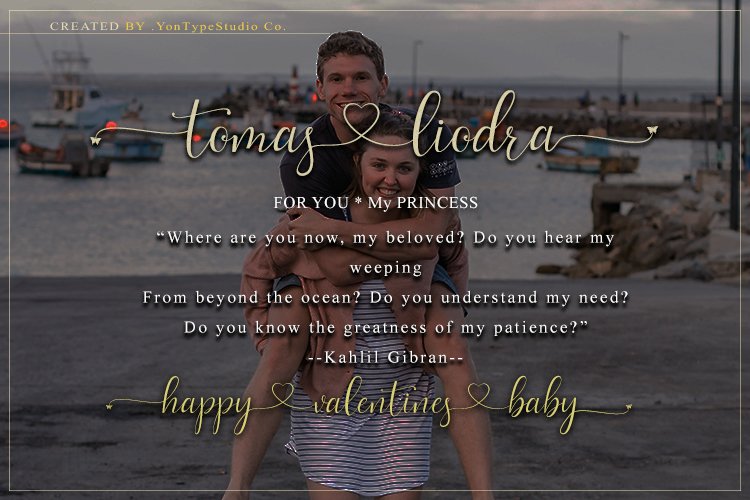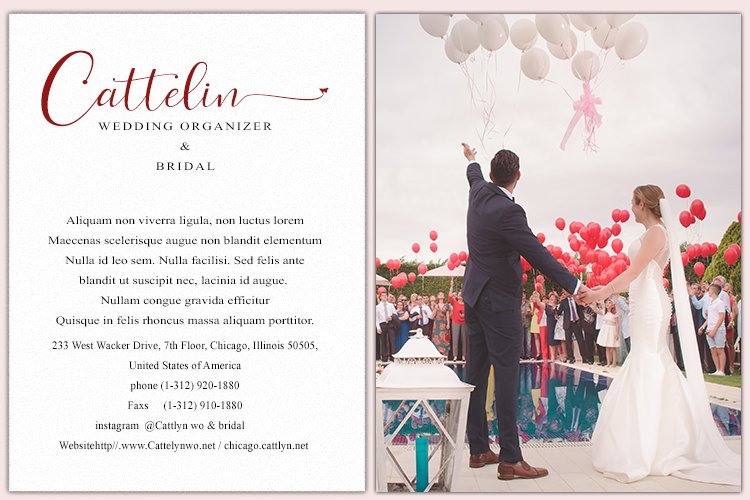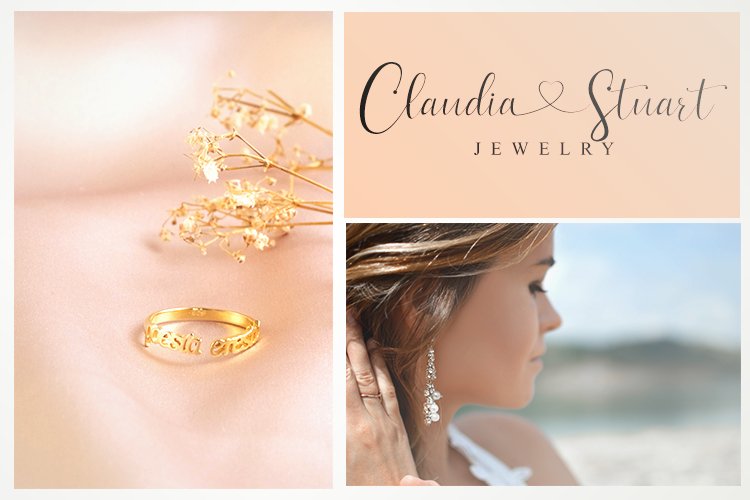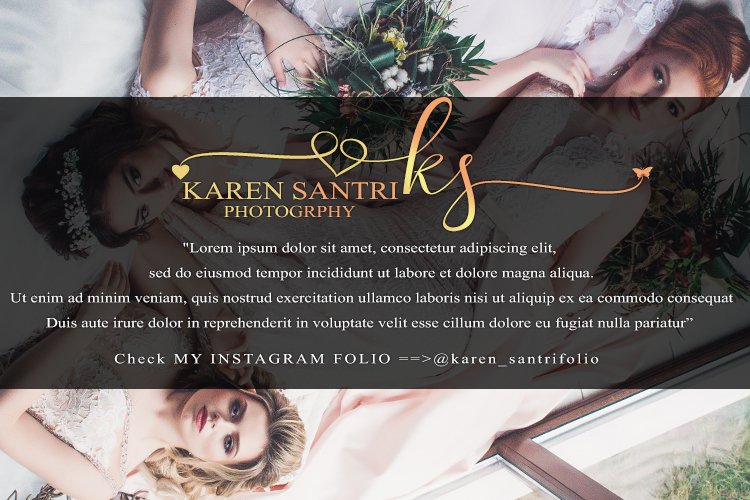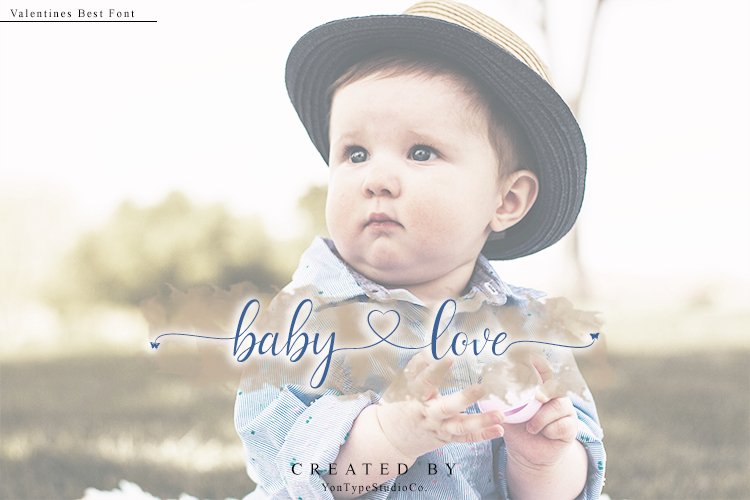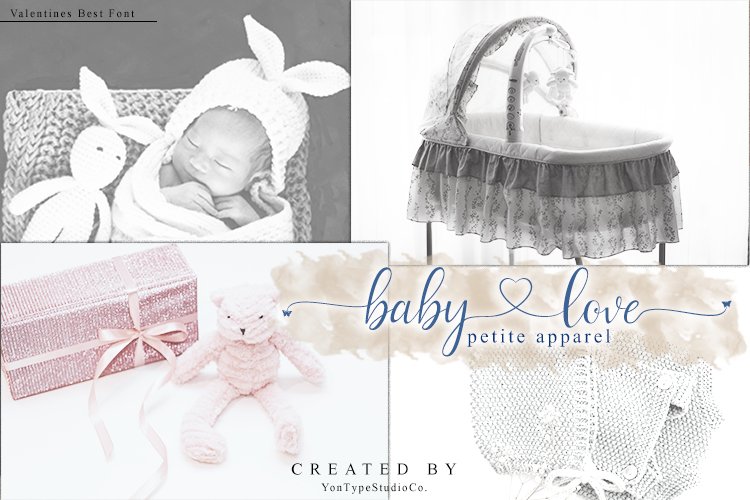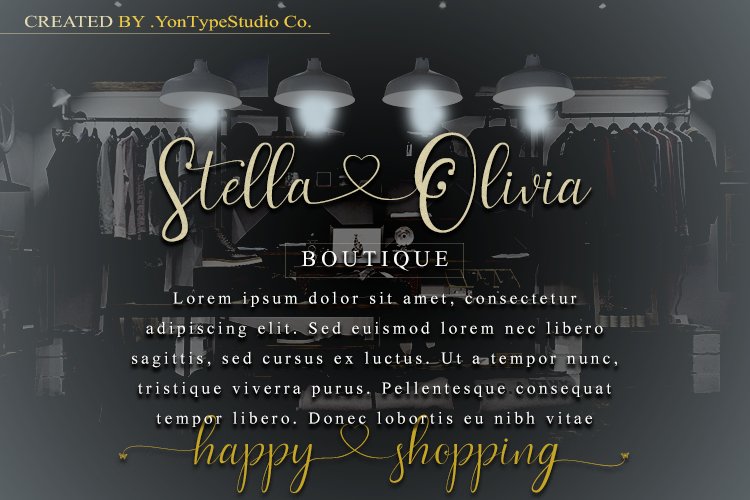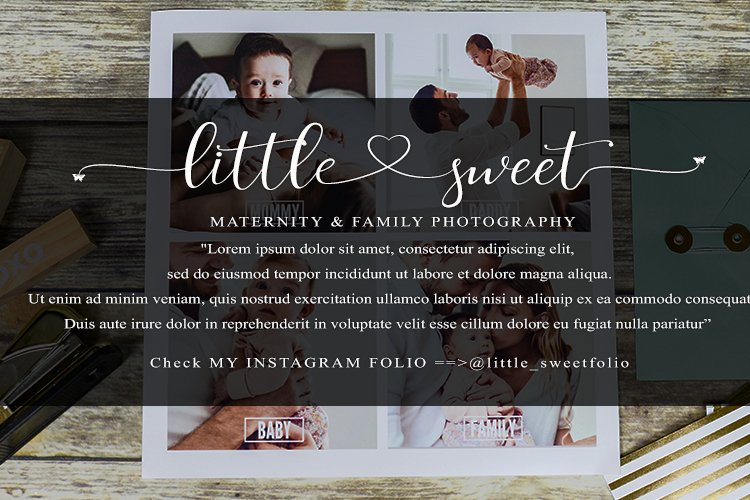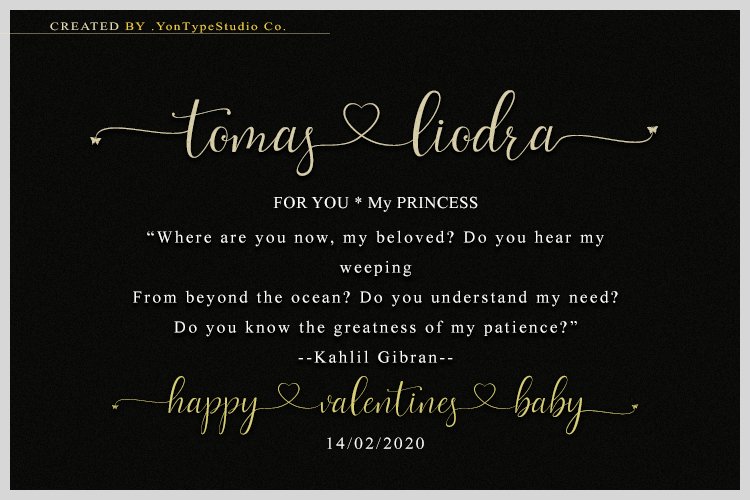
introducing the live love font
This font is a handwritten Calligraphy font with a clean texture. This font is suitable for wedding invitations, logos and branding
live love font includes complete lowecase and uppercase punctuation letters and supports multilingual
live love font includes several fiture swashes that are very unique and look sweet